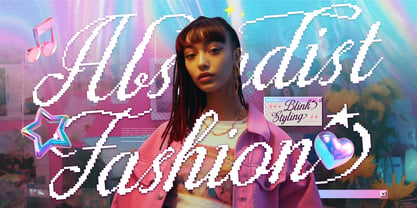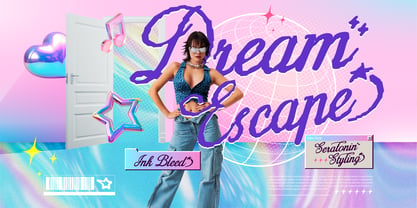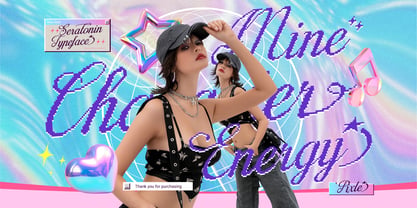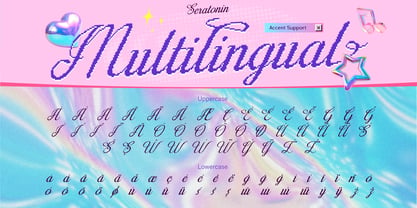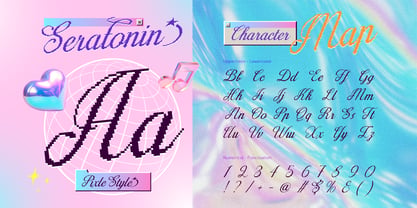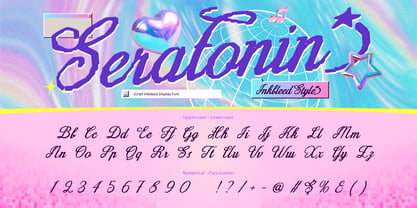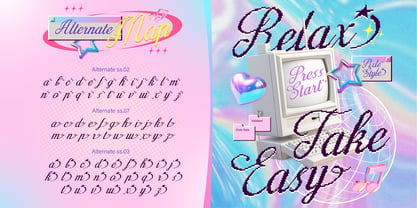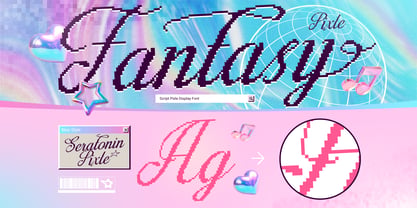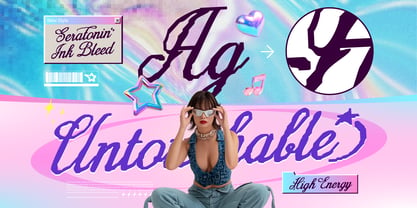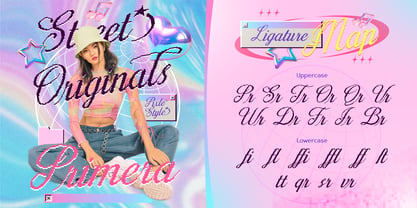
Seratonin
Seratonin is a unique script font that blends nostalgic pixel aesthetics with elegant handwritten curves. Designed with a soft retro-futuristic vibe, this font brings a perfect mix of digital charm and emotional warmth, just like its name.
With its signature pixel-style edges and ink bleed effect, Seratonin creates a distinctive look that feels both vintage and modern. It’s ideal for designers who want to add a playful yet stylish touch to their projects.
Whether you're creating branding, social media graphics, or creative layouts, Seratonin delivers a standout visual with a dreamy Y2K-inspired mood.
Perfect For: Y2K & retro design projects, Fashion branding & editorials, Social media content (Instagram, Pinterest), Logo design & packaging, Posters, album covers & creative visuals
Features: A - Z set (Uppercase & Lowercase), Number, Punctuation, Alternates, Ligatures, Multilingual